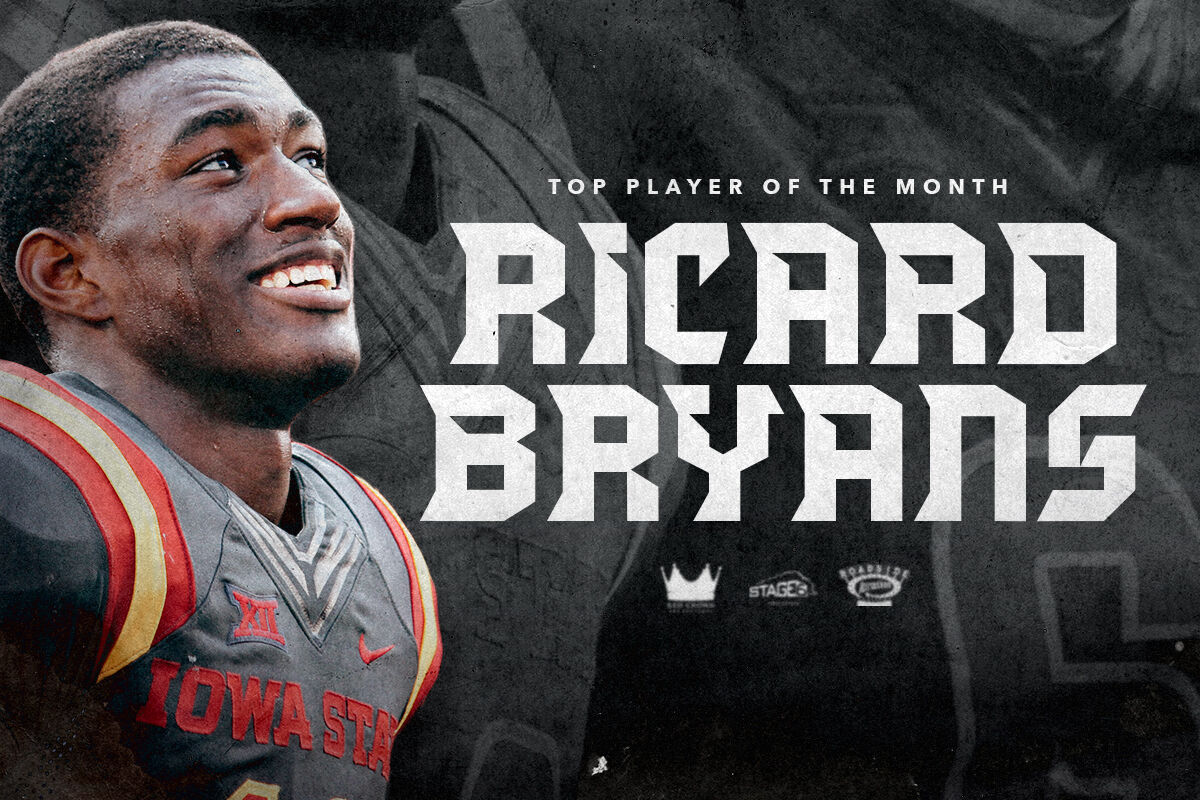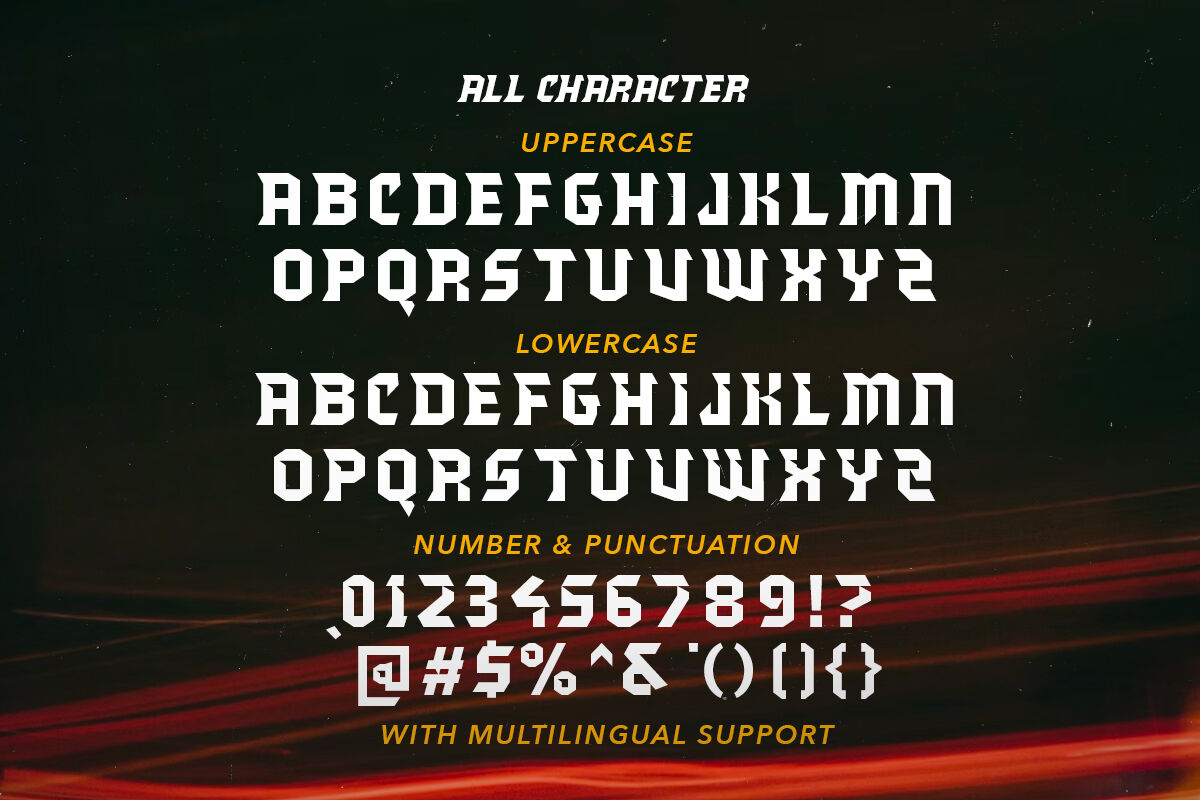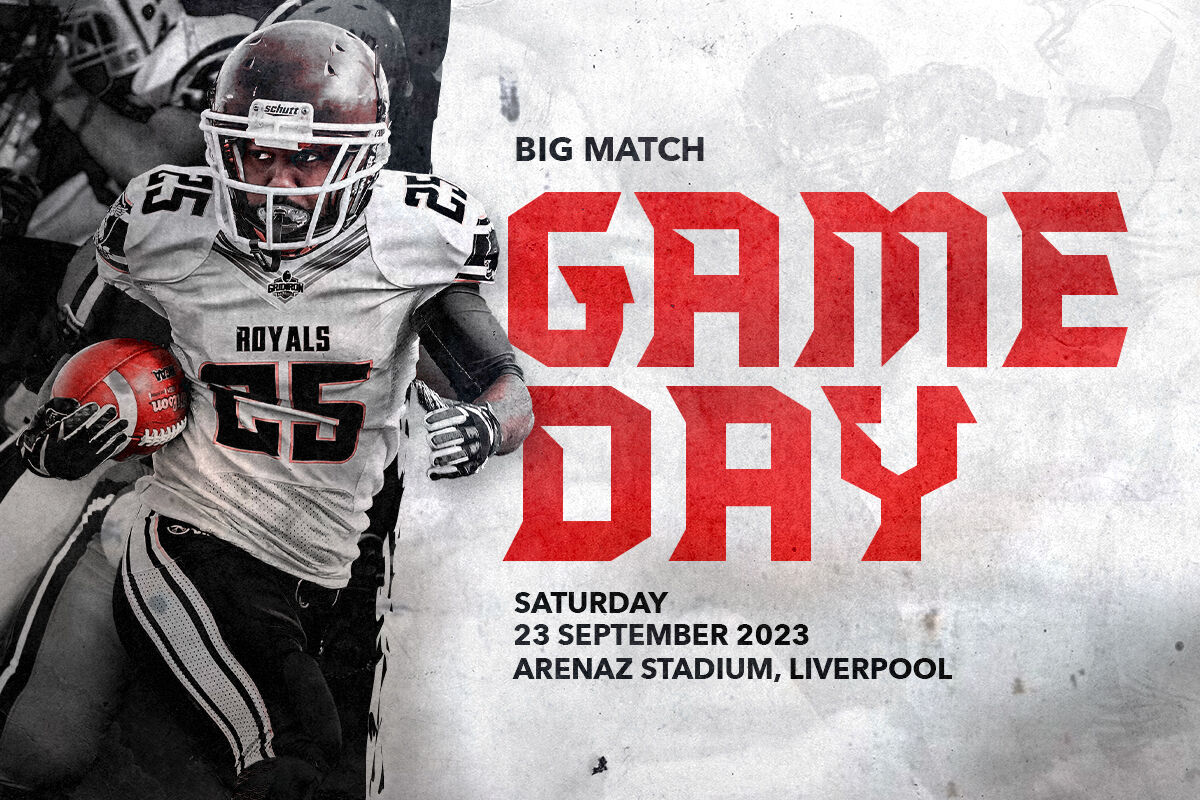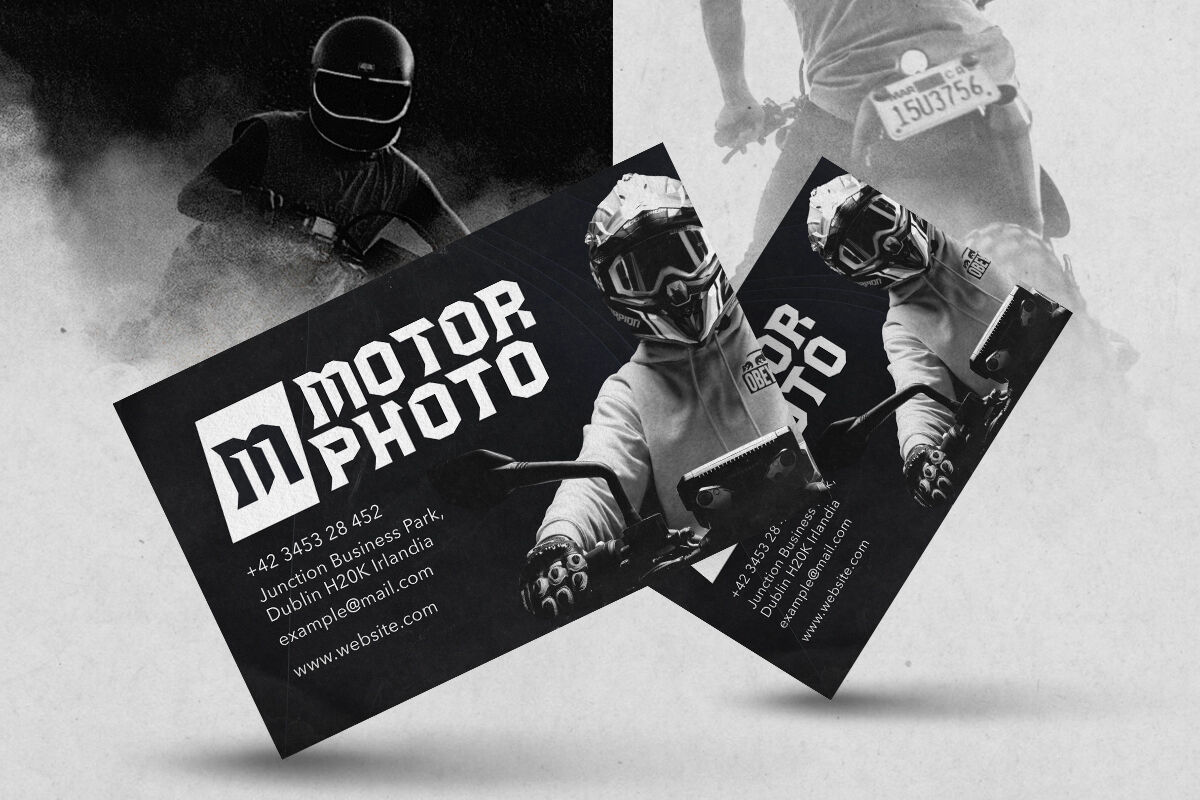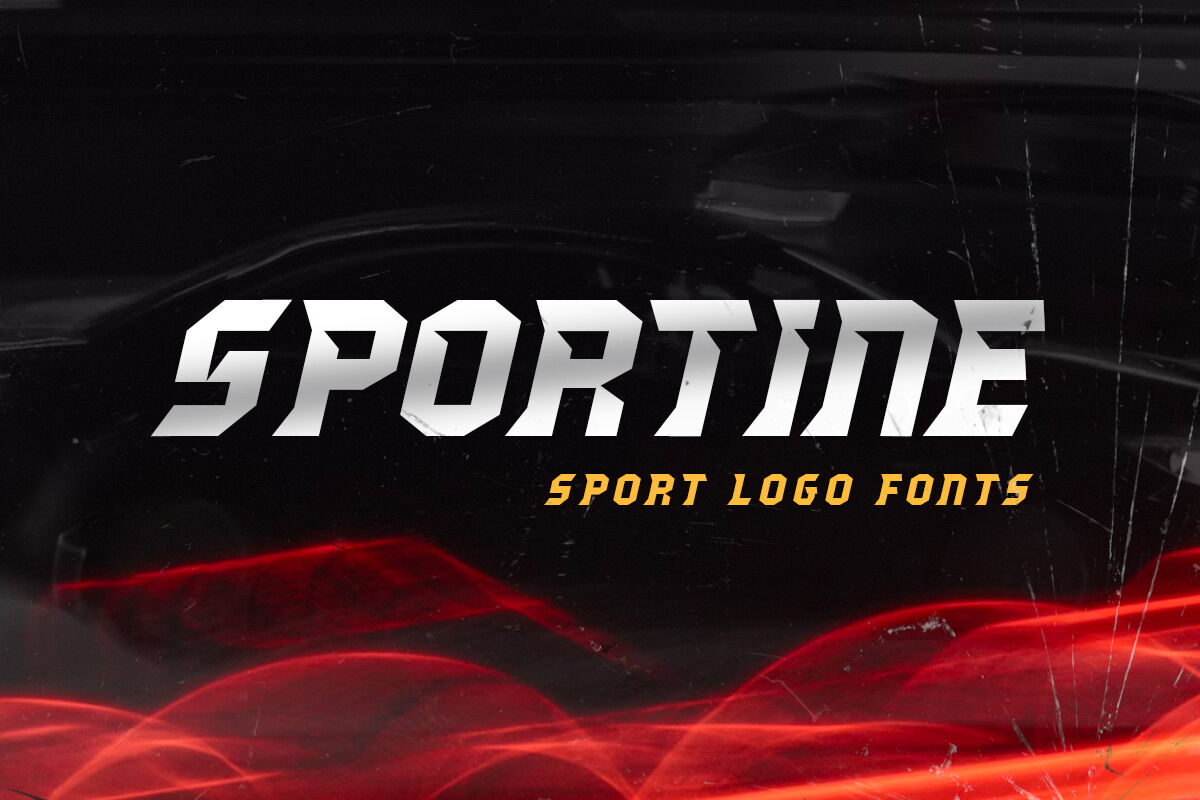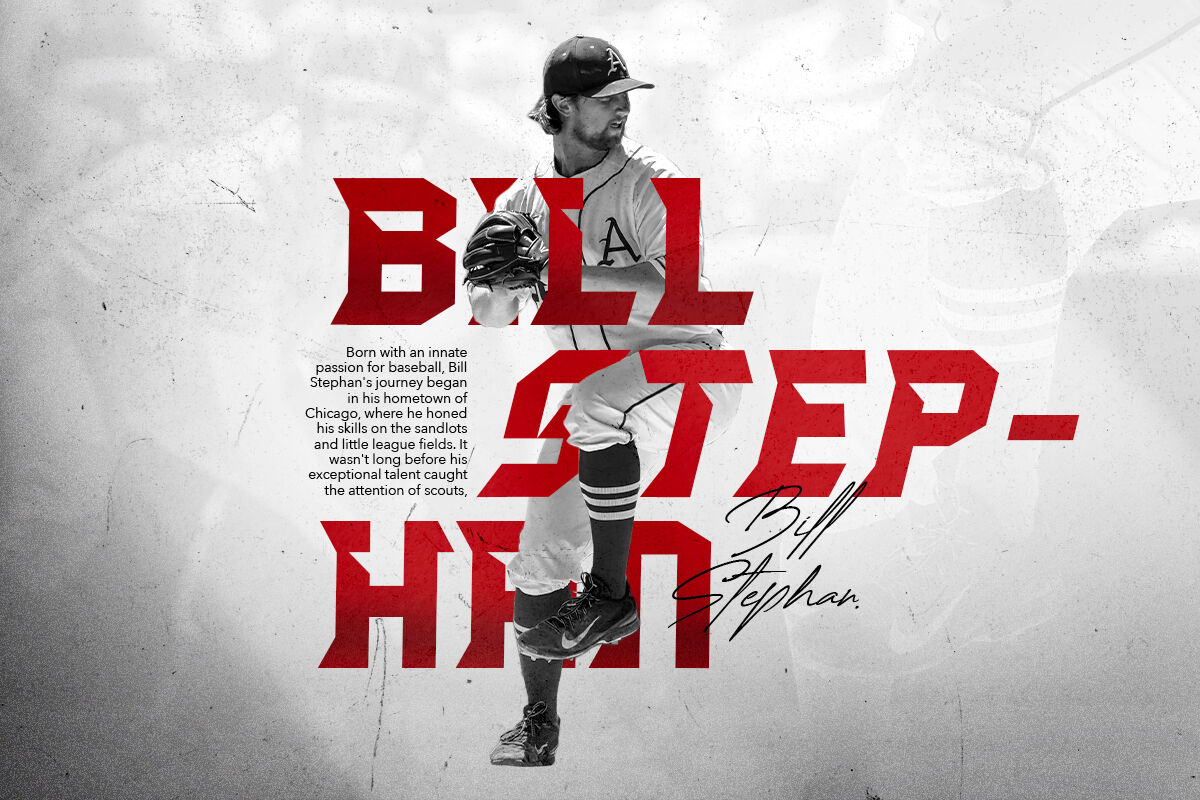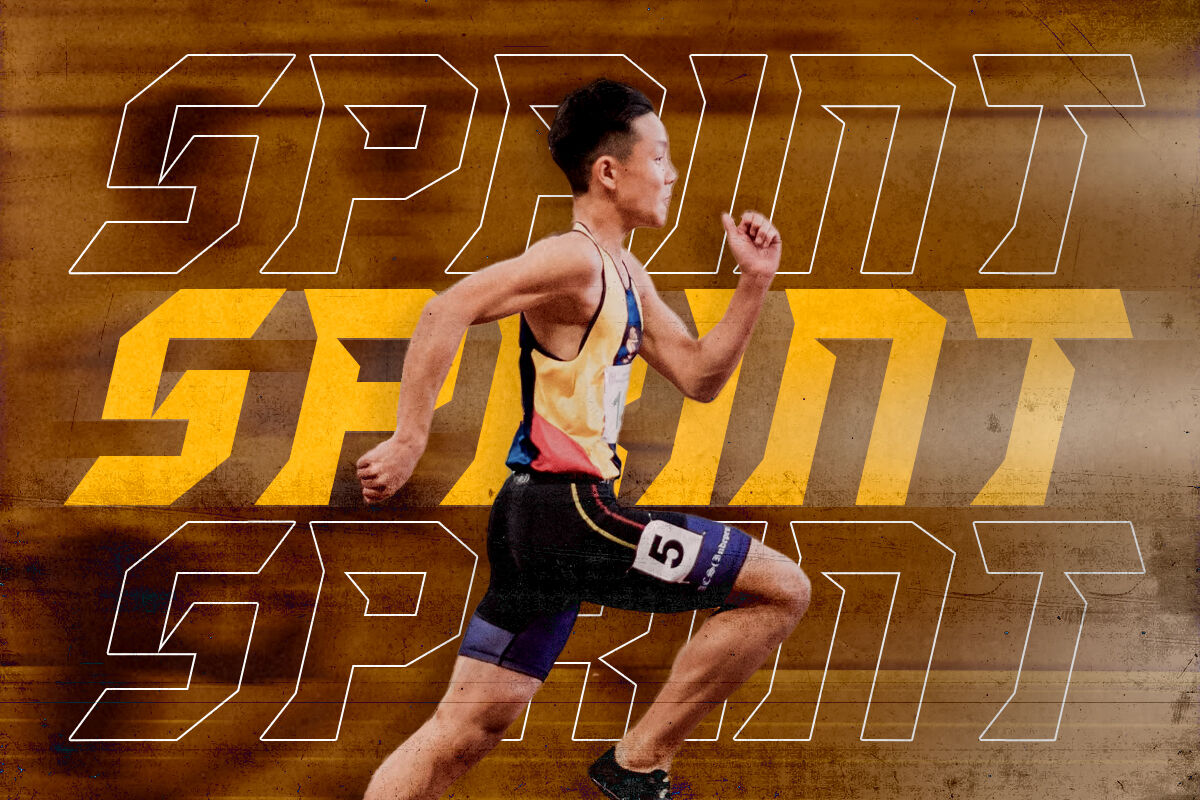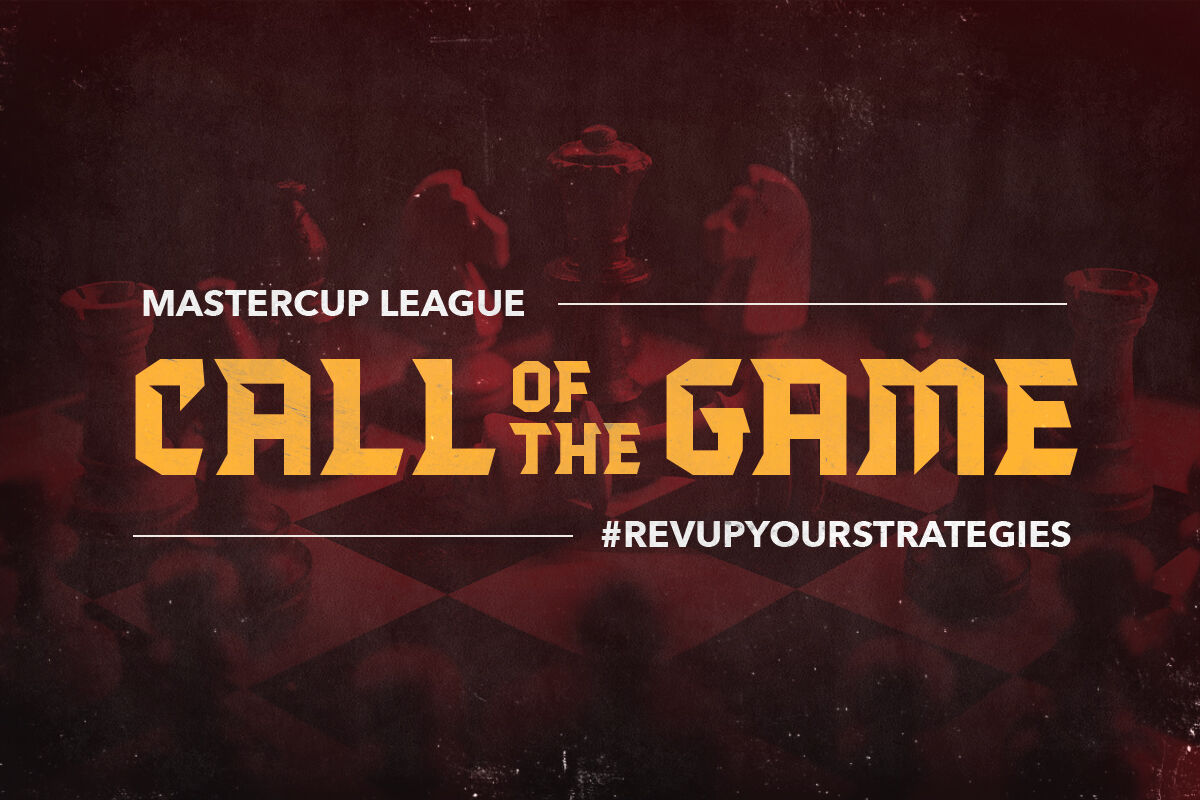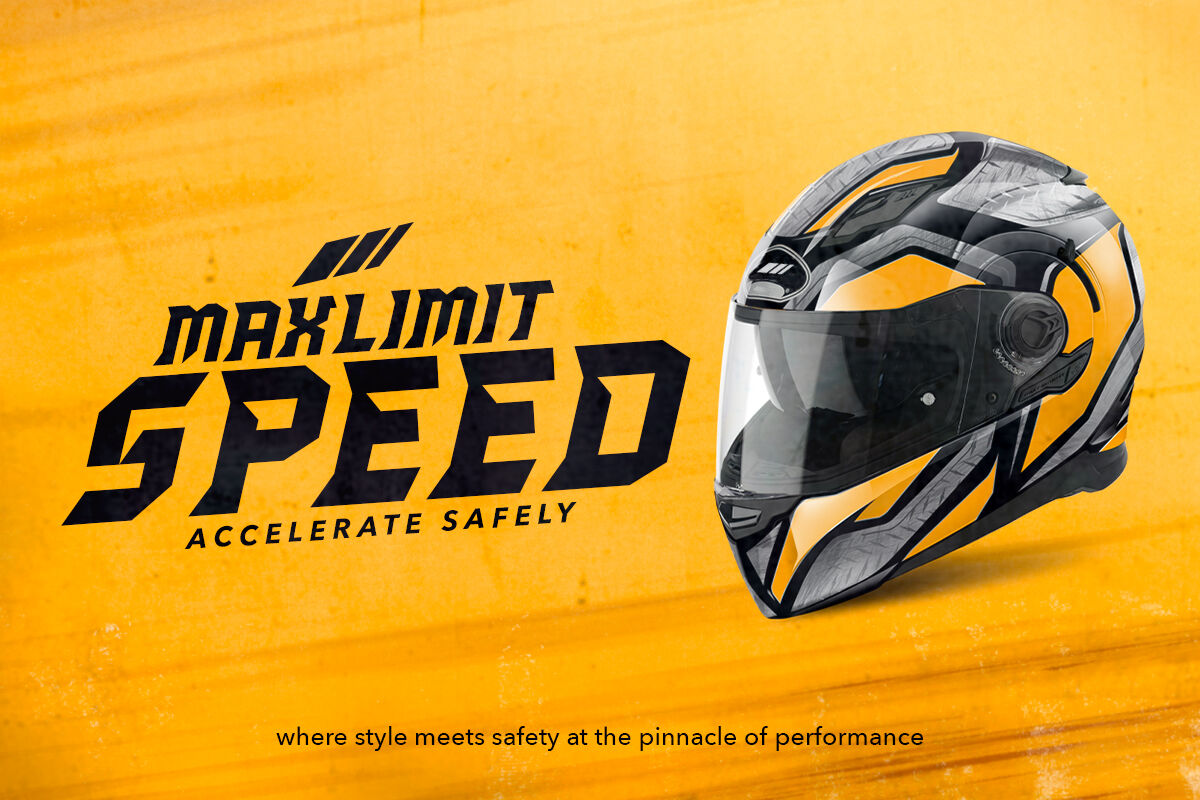
Sportine - Sport Logo Fonts
Sportine is a sport logo inspired font with unique and sporty looks. Including ligatures that you can use for more options for your logo project. With stylish fracture in lowercase mode, you can combine the uppercase and lowercase to make your logo more stunning. You can use this font for logo, game, movie poster, jersey, and sport event. This font also support multilingual.